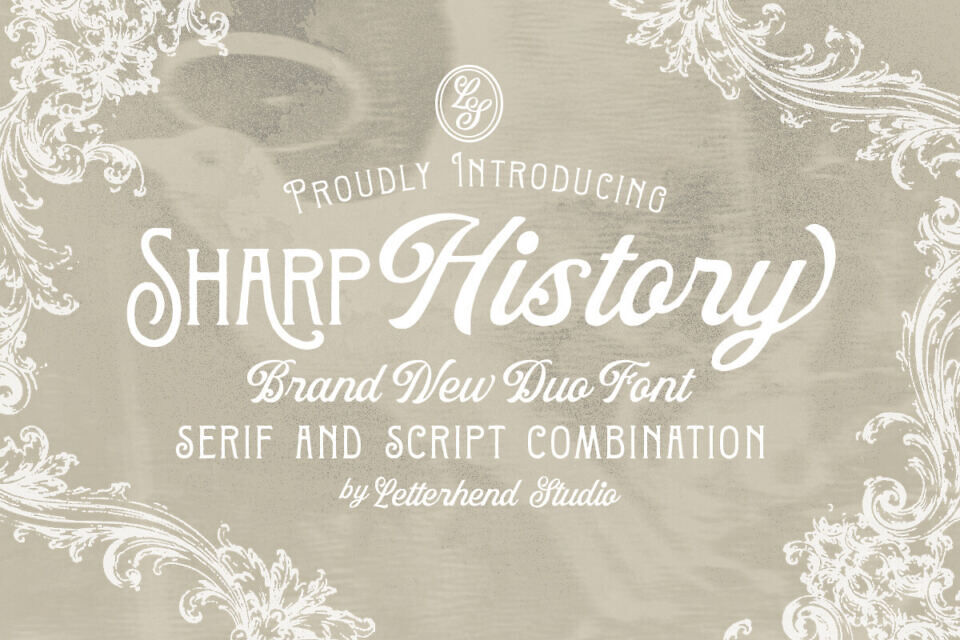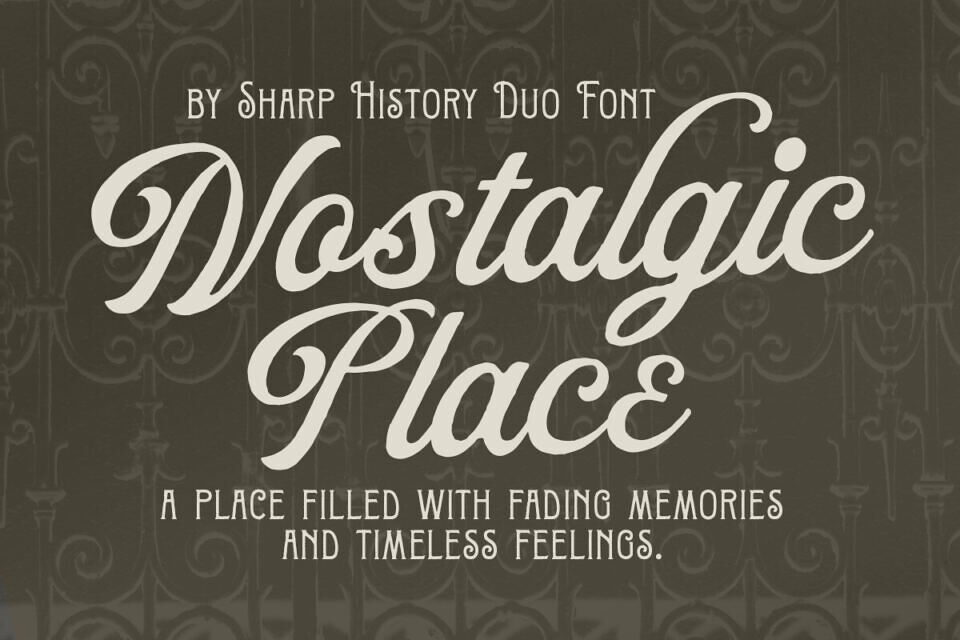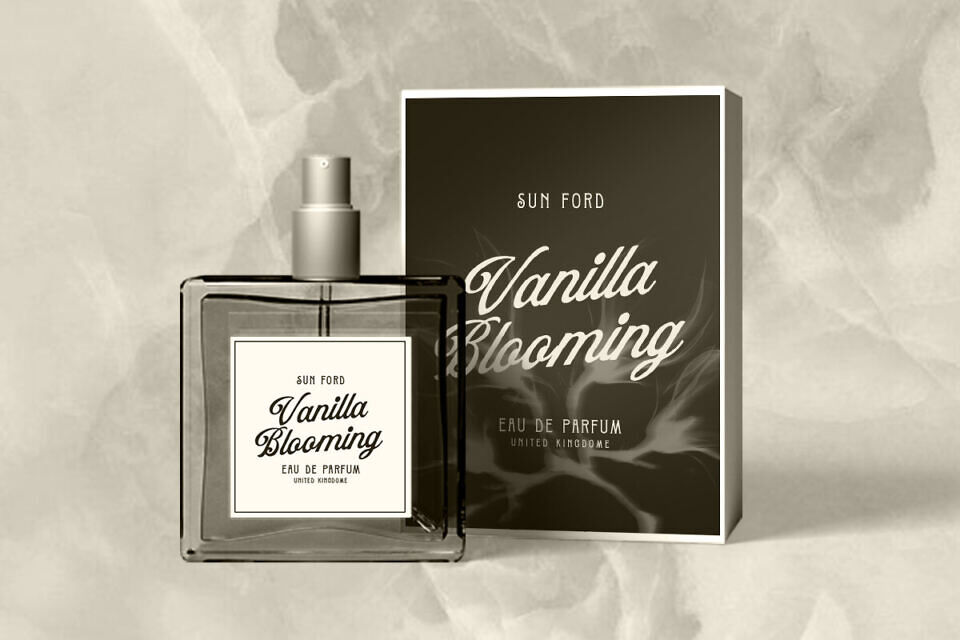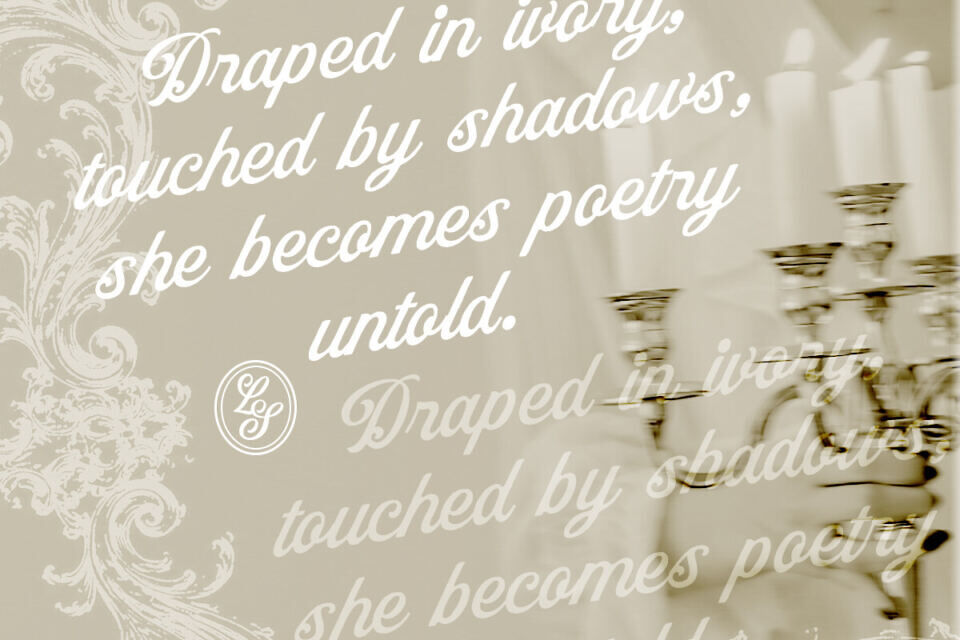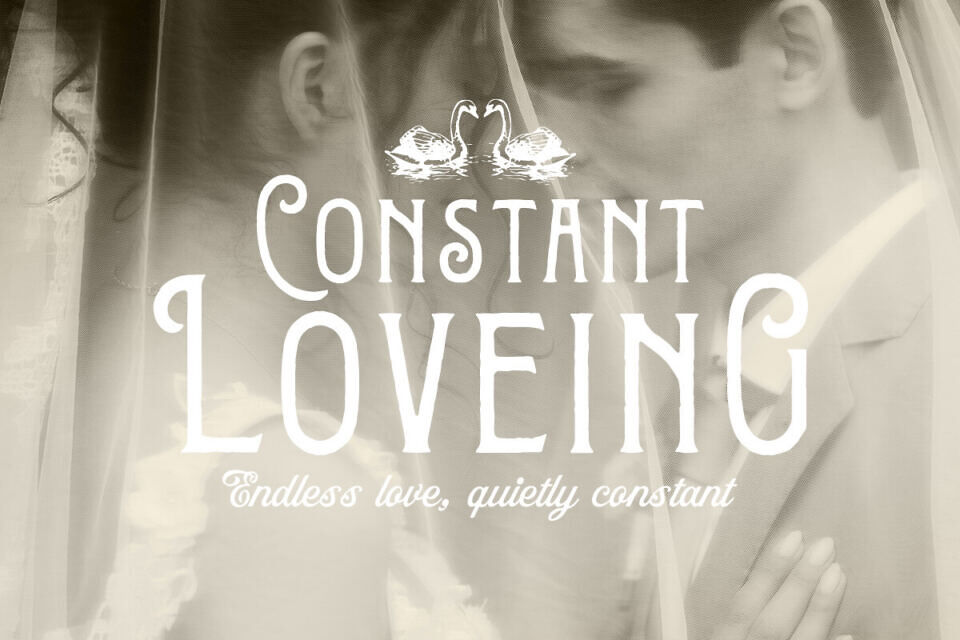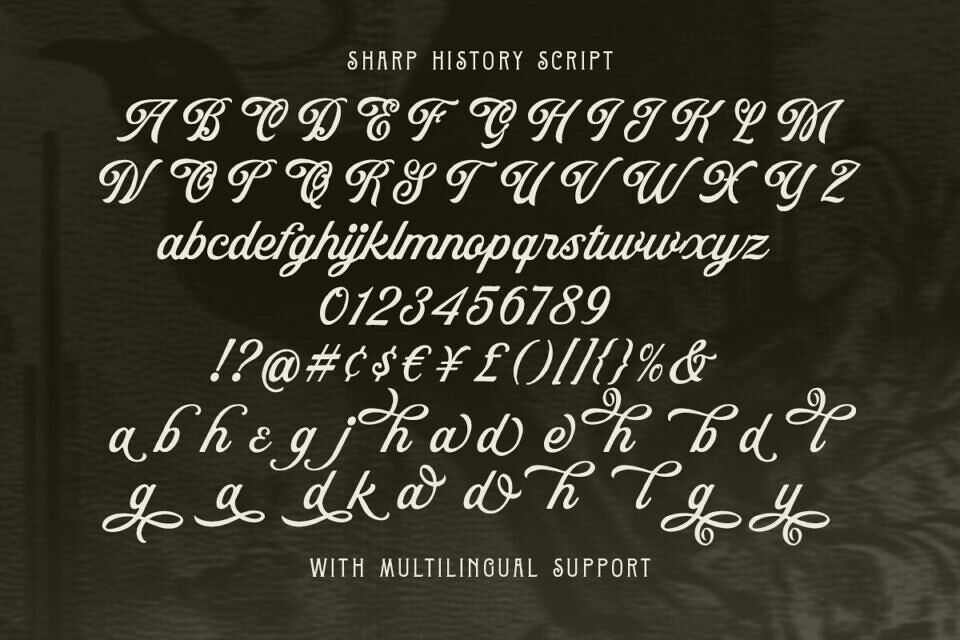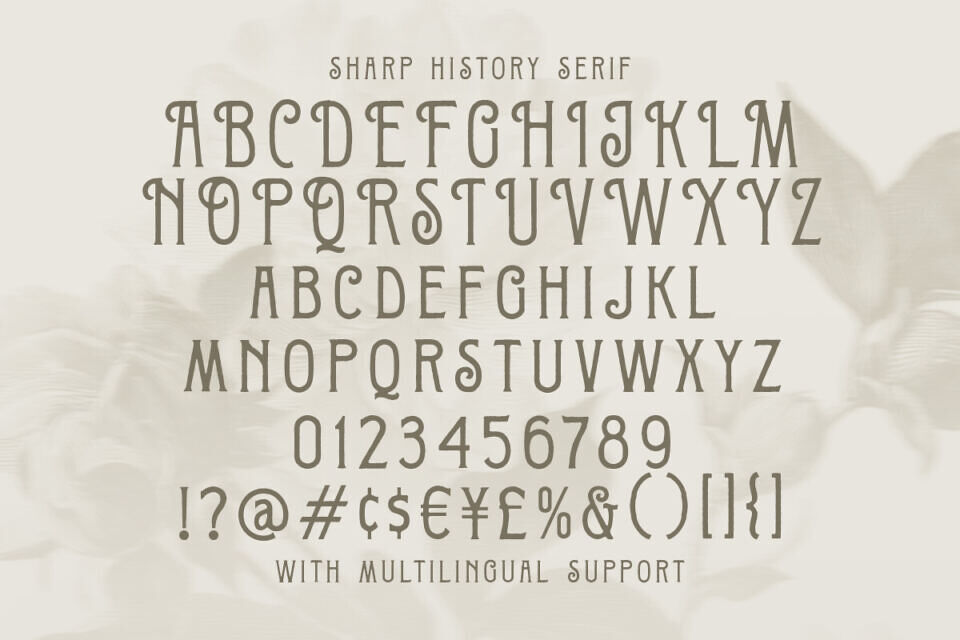
Sharp History Font
Sharp History is a vintage-inspired font duo that combines a decorative serif with a smooth, elegant script. The serif style adds classic character with subtle ornamental details, while the script brings a soft and natural flow that works beautifully for names, quotes, and signatures.
Together they create a balanced and timeless look for wedding invitations, branding, packaging, logos, editorial layouts, greeting cards, and other designs that need a touch of vintage charm and refinement.